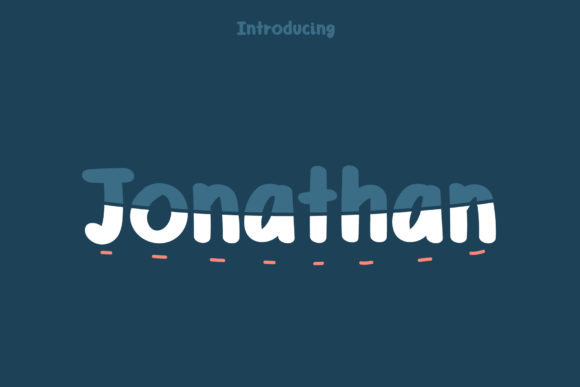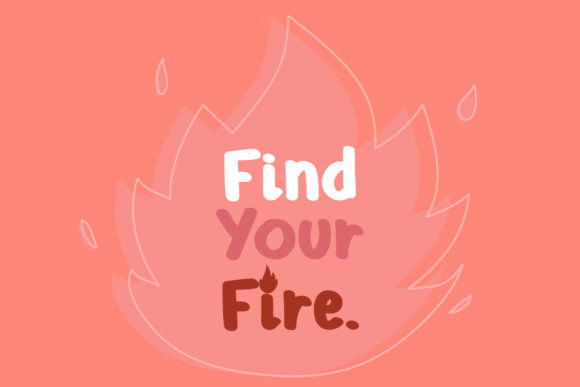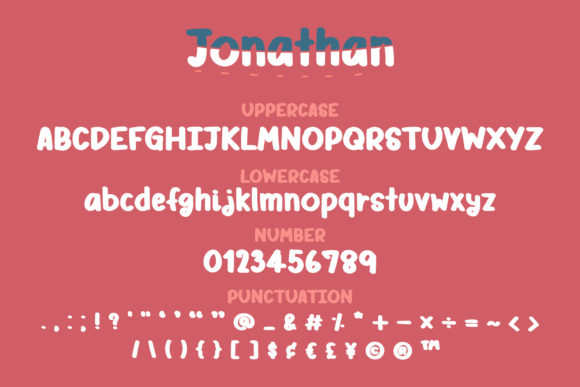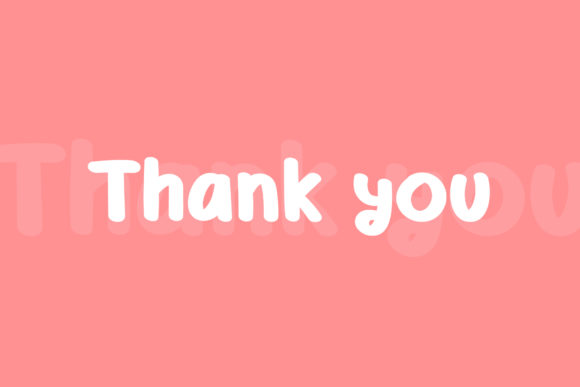
Jonathan Font
About Jonathan Font
Jonathan looks bold, yet sophisticated. Its casual charm makes it appear wonderfully down-to-earth, readable and, ultimately, incredibly versatile. Jonathan will look outstanding in any context, whether it’s being used on busy backgrounds or as a standalone headline!